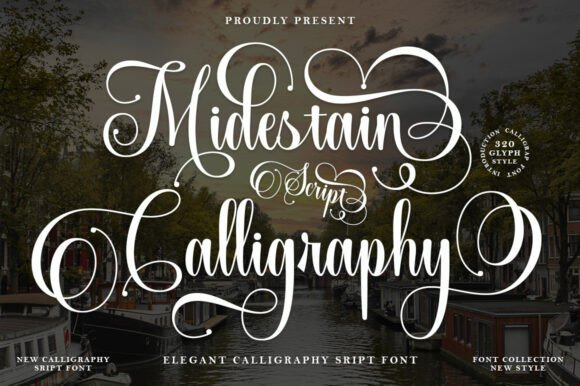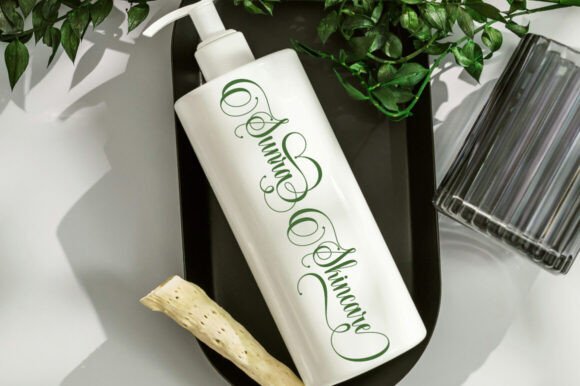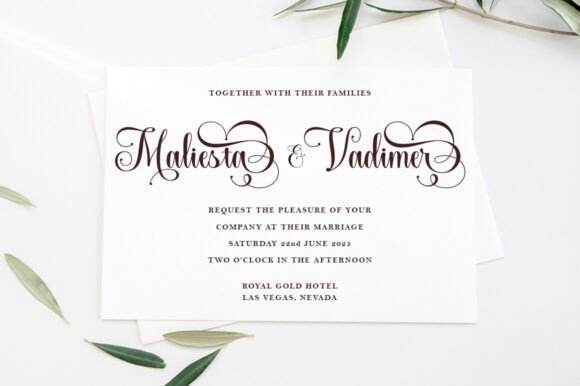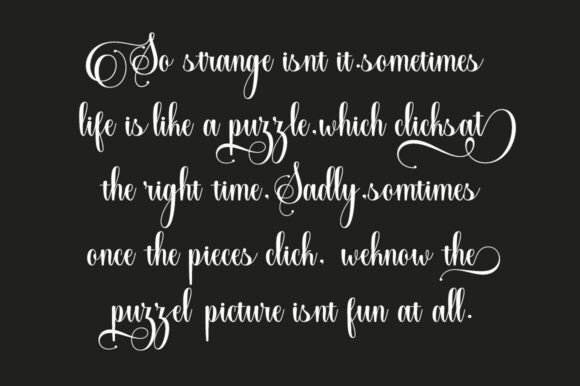
Midestain Calligraphy Font
About the Midestain Calligraphy Font
Unleash your creativity with Midestain Calligraphy Font, a versatile font perfect for a wide range of applications. Midestain Calligraphy is a delicate, elegant, and timeless font. It has beautiful and well-balanced characters and as a result, it matches a wide pool of designs. Add it to your most creative ideas and notice how it makes them come alive!
Midestain Calligraphy excels in applications requiring a touch of refined elegance. It’s ideal for short headlines, logotypes, invitations, and even select packaging elements where a sense of sophistication is key. Avoid using it for large blocks of text or body copy; its delicate nature makes extended reading difficult. Similarly, it’s not well-suited for user interfaces or situations demanding high legibility.
Its inherent elegance pairs beautifully with clean sans-serif fonts like Montserrat or Lato for a modern contrast. For a more classic feel, consider pairing it with a well-proportioned serif such as Garamond or Playfair Display. A touch of a geometric sans-serif, such as Futura, can also provide a striking counterpoint, creating a sophisticated balance between the organic and the precise.
Midestain Calligraphy projects a personality of understated grace and timeless sophistication. It’s best suited for brands and projects aiming for a refined, high-end aesthetic, such as luxury goods, boutique hotels, or high-end stationery.
Midestain Calligraphy Font Usage Examples
Midestain Calligraphy Font Example